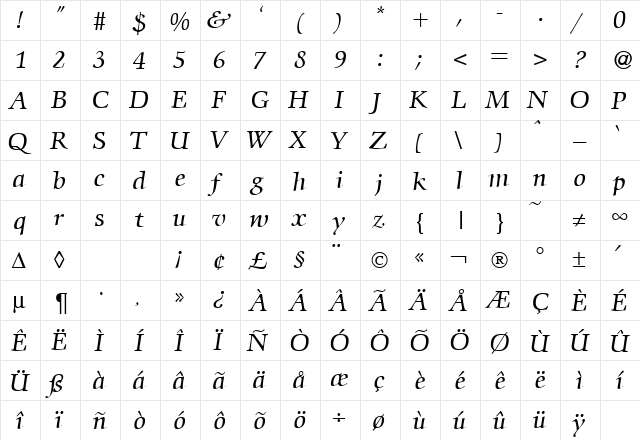
Commencement RegularItalic
Design Context for Commencement Typeface
Commencement takes a measured approach to typography — its balanced proportions and neutral character make it a reliable workhorse for both digital and print work. The dynamic lean of this cut emphasises speed and emphasis in any layout.
Pro Tip: Use Commencement for emphasis, pull quotes, and subheadings where its slanted energy can add rhythm to the layout.